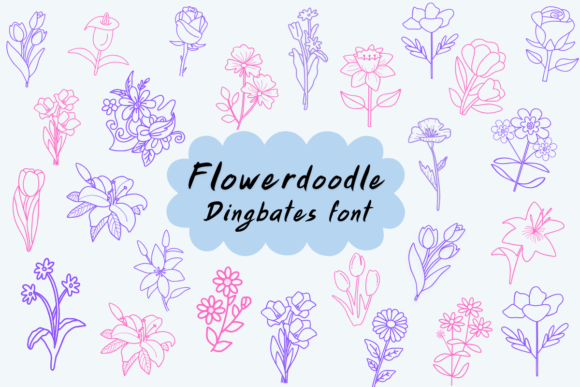
Introduction to Flower Doodle Font
Flower Doodle is a playful dingbat font made up of cute, hand-drawn flower designs.
Each character is a simple, fun flower shape, perfect for adding a touch of nature and charm to your projects .
Flower Doodle Font offers exceptional quality and versatility, making it a valuable addition to your design toolkit. Whether you’re creating for personal projects or commercial use, Flower Doodle Font delivers professional results.